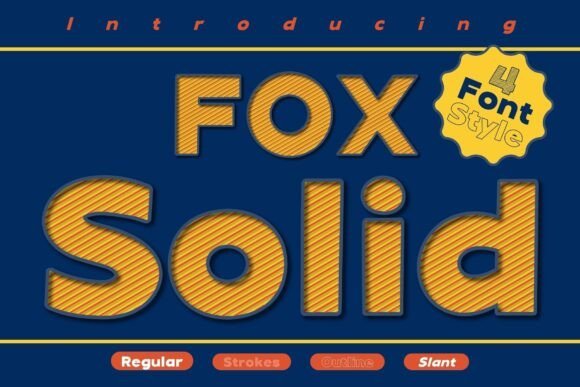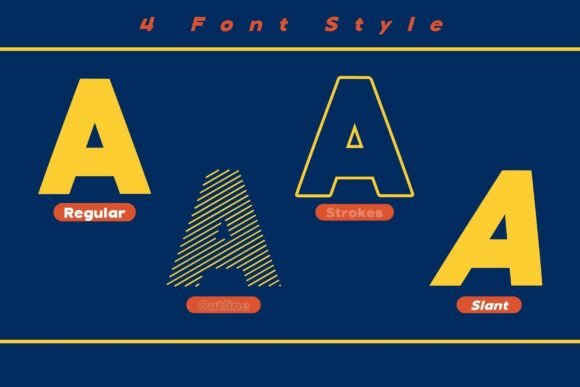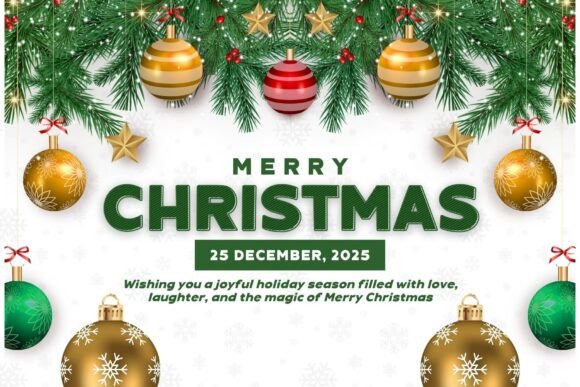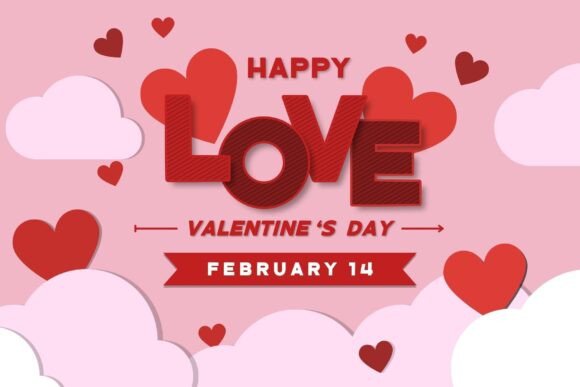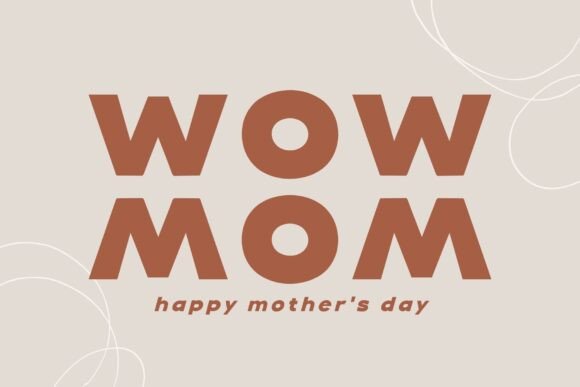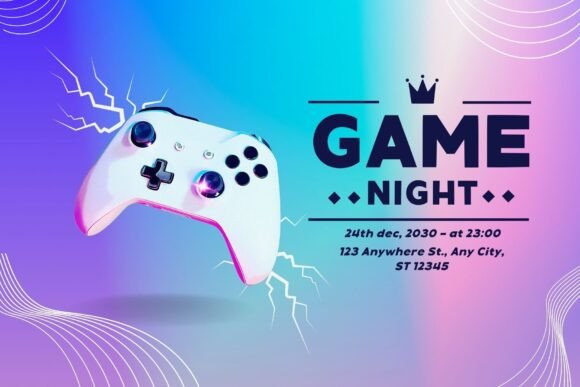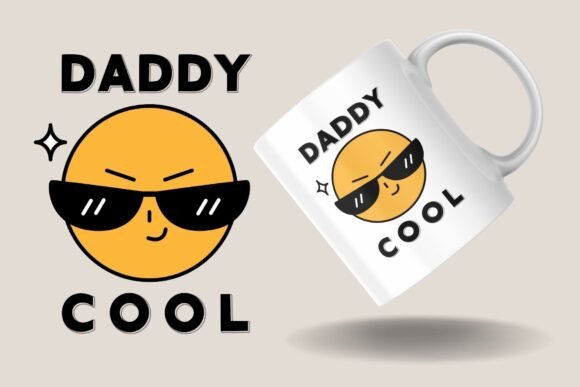
Adding a Punch to Your Designs
You know that moment when you’re brainstorming ideas for a new project, and suddenly, the perfect font pops into your head? It’s the one that makes your design stand out, elevates your message, and leaves a lasting impression. For many designers, that font is Fox Solid Font – a bold and cool stylish typeface designed to add impact to your designs.
With four unique styles to choose from – Regular, Strokes, Outline, and Slant – Fox Solid Font offers endless possibilities for creative expression. Whether you’re working on a poster, logo, or any other project, this versatile font is sure to bring your vision to life. Its eye-catching design makes it a valuable asset for designers looking to make a statement and take their work to the next level.
Fox Solid Font Key Features
- Font Family: Fox Solid Font is a sans-serif font family, ideal for digital and print media.
- Unique Characteristics: Fox Solid Font features a clean and modern design, with a solid structure and geometric shapes, making it highly legible and versatile.
Review: Fox Solid Font
Overall, I think Fox Solid Font is a solid choice (pun intended) for a wide range of projects. The clean lines and minimalist aesthetic make it a great option for modern designs.
- High legibility: Fox Solid Font is easy to read, even at smaller font sizes.
- Flexibility: It’s suitable for both digital and print projects.
- Stylish: The font’s sleek design makes it a great choice for branding and marketing materials.
- Limited expressiveness: Fox Solid Font may not be the best choice for projects that require a lot of personality or flair.
- Not ideal for creative or cursive text: The font’s solid lines can make it look a bit too rigid for creative or cursive text.
While Fox Solid Font may not be the most exciting font, it’s a reliable choice that’s sure to get the job done. It’s a great option for projects where you need a clean, modern look without too much fuss. Just be aware of its limitations, and use it in situations where it’s the best fit.
Tips for Getting the Most Out of Fox Solid Font
For best results, use Fox Solid Font in combination with a bold or italic style to add emphasis to your text.
Experiment with different font sizes to create a visually appealing hierarchy of text.
Fox Solid Font is ideal for use in logos, branding materials, and other design elements where a clean and modern font is desired.
It’s also suitable for use in body text, particularly in digital design projects where a clear and readable font is essential.
Alternatives to Fox Solid Font
Montserrat is a sans-serif font designed by Julieta Ulanovsky. It is a versatile and modern font that works well for digital and print media. Use Montserrat for body text, headings, and titles in a wide range of applications.
Comparison to Fox Solid Font: Montserrat is more condensed and has a stronger geometric feel, making it suitable for digital displays and smaller text sizes. Fox Solid Font is more rounded and has a softer feel.
Open Sans is a modern sans-serif font designed by Steve Matteson. It is highly legible and suitable for a wide range of applications, including digital and print media. Use Open Sans for body text, headings, and titles in a variety of contexts.
Comparison to Fox Solid Font: Open Sans is more rounded and has a softer feel, making it suitable for larger text sizes and print media. Fox Solid Font is more condensed and has a stronger geometric feel.
Inter is a sans-serif font designed by Rasmus Andersson. It is a highly legible and versatile font that works well for digital and print media. Use Inter for body text, headings, and titles in a wide range of applications.